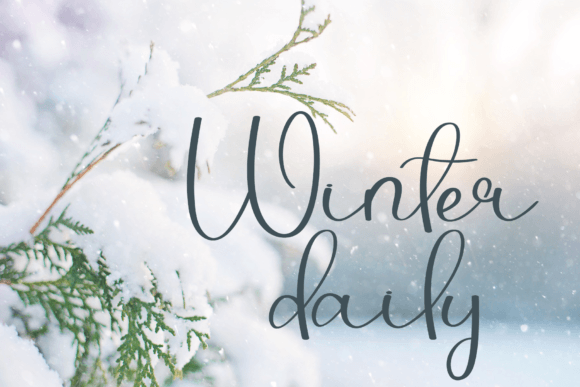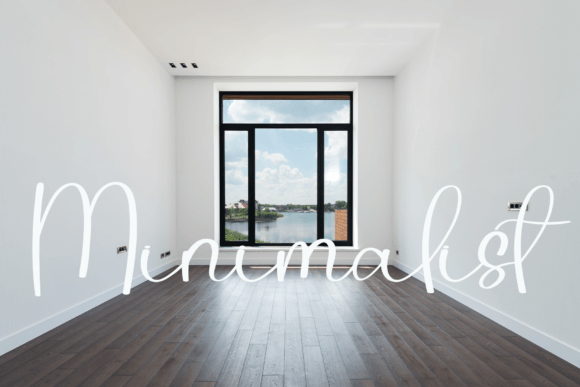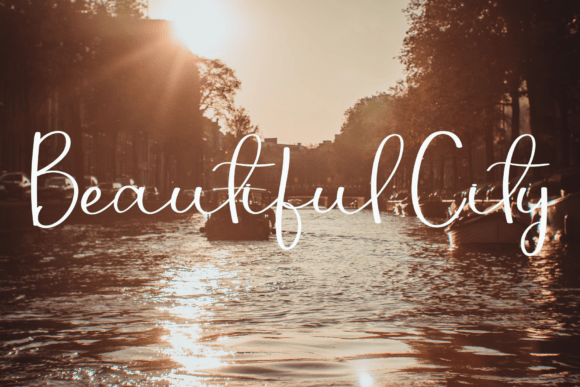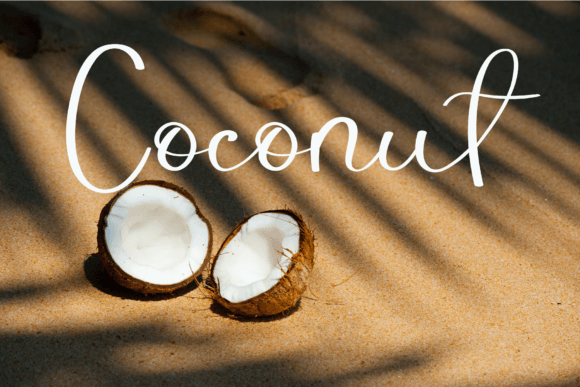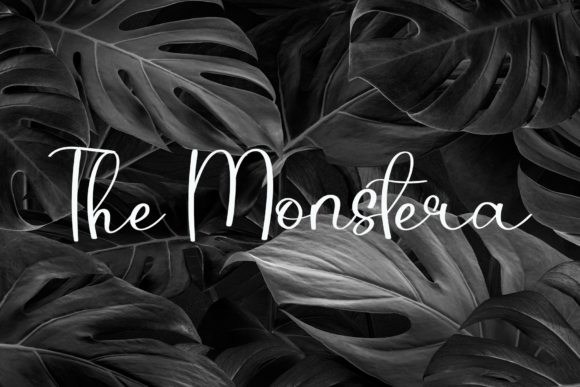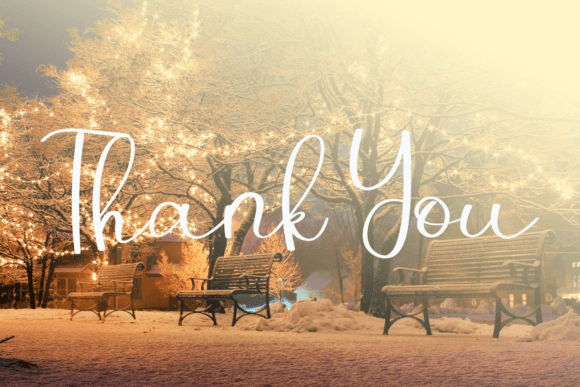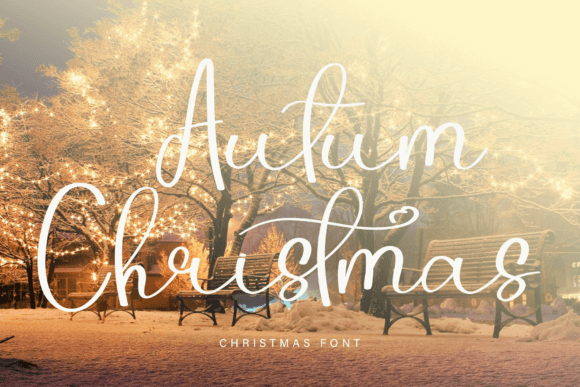
Introducing Autum Christmas Font: Add a Touch of Whimsy to Your Designs
Are you looking for a font that can add a dash of fun and quirkiness to your designs? Look no further than the Autum Christmas Font! This delightful script font is perfect for crafty ideas and is sure to bring a smile to your audience’s faces. In this article, we’ll explore the features and benefits of Autum Christmas Font and show you how to make the most of it in your designs.
What is Autum Christmas Font?
Autum Christmas Font is a unique and playful script font that combines the warmth of autumn with the magic of Christmas. Its irregular curves and bouncy lines give it a hand-drawn feel that’s perfect for adding a personal touch to your designs. Whether you’re creating cards, promotional ads, social media posts, or product packaging, Autum Christmas Font is sure to make your designs stand out.
Features of Autum Christmas Font
- Fun and quirky design: Autum Christmas Font has a playful and whimsical design that’s perfect for adding a touch of personality to your designs.
- Script font style: The font features a beautiful script style that’s perfect for creating eye-catching headlines and titles.
- Hand-drawn feel: The irregular curves and bouncy lines give the font a hand-drawn feel that’s perfect for adding a personal touch to your designs.
- Versatile: Autum Christmas Font can be used for a wide range of design projects, from cards and social media posts to promotional ads and product packaging.
Benefits of Using Autum Christmas Font
So why should you choose Autum Christmas Font for your designs? Here are just a few benefits of using this delightful font:
- Adds a personal touch: The hand-drawn feel of Autum Christmas Font adds a personal touch to your designs, making them more relatable and engaging.
- Creates a festive atmosphere: The combination of autumn and Christmas elements creates a festive atmosphere that’s perfect for holiday-themed designs.
- Perfect for crafty designs: Autum Christmas Font is perfect for crafty designs, such as handmade cards, DIY tutorials, and craft blog posts.
- Easy to read: Despite its playful design, Autum Christmas Font is easy to read, making it perfect for use in body text as well as headlines.
Using Autum Christmas Font in Your Designs
So how can you use Autum Christmas Font in your designs? Here are a few ideas to get you started:
- Holiday cards: Use Autum Christmas Font to create festive holiday cards that will delight your friends and family.
- Social media posts: Add a touch of whimsy to your social media posts with Autum Christmas Font.
- Promotional ads: Use Autum Christmas Font to create eye-catching promotional ads that will grab your audience’s attention.
- Product packaging: Add a personal touch to your product packaging with Autum Christmas Font.
Tips for Getting the Most Out of Autum Christmas Font
Here are a few tips for getting the most out of Autum Christmas Font:
- Experiment with colors: Autum Christmas Font looks great in a range of colors, so don’t be afraid to experiment and find the perfect hue for your design.
- Pair with other fonts: Try pairing Autum Christmas Font with other fonts to create a unique and eye-catching design.
- Use it sparingly: While Autum Christmas Font is perfect for adding a touch of whimsy to your designs, it’s best used sparingly to avoid overwhelming your audience.
Autum Christmas Font is a fun and quirky script font that’s perfect for adding a touch of personality to your designs. With its hand-drawn feel and festive atmosphere, it’s perfect for holiday-themed designs, crafty projects, and more. Whether you’re a designer or a crafter, Autum Christmas Font is sure to bring a smile to your audience’s faces. So why not give it a try and see the results for yourself?